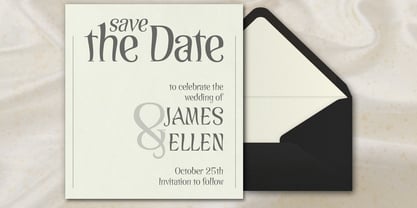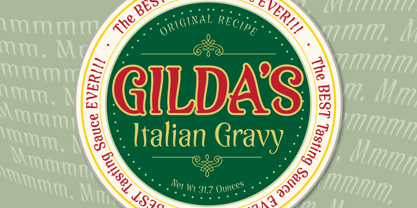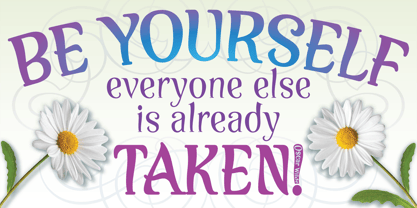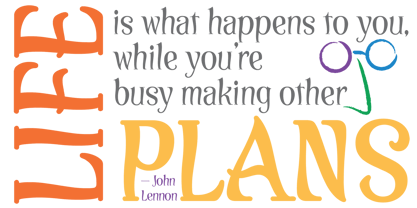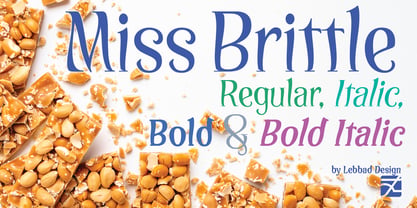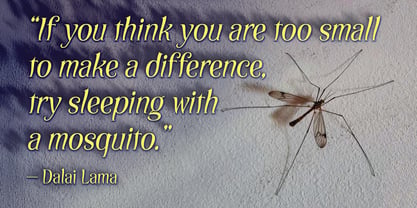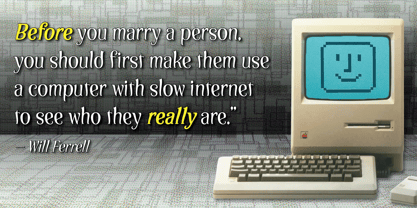
Miss Brittle
by Lebbad Design
Miss Brittle is the latest font from Lebbad Design. The font is named after my granddaughter Charlotte, but since that name was taken already, I had to settle for her nickname Miss Brittle (you'll have to ask my daughter Nicole about that.) Miss Brittle is cute, cuddly, fun, elegant and sophisticated all at the same time, just like her namesake. Enjoy!
Jim Lebbad is a graphic designer specializing in typographic design and handlettering. He has created award-winning designs for domestic and international clients including Arista Records, Nickelodeon, Campbell Soup Company and Simon & Schuster Publishing, to name a few. Upon graduating from Kutztown University, Jim headed straight to New York where he started his career at New American Library as a book cover designer. While at NAL, Jim's handlettering skills won awards from the Type Directors Club. He then moved on to Berkley Putnam Publishing where he was named Art Director. While there, his art direction on numerous covers won awards from the Society of Illustrators. Jim created Lebbad Design in 1981 and continues creating work for a variety of clients both large and small.